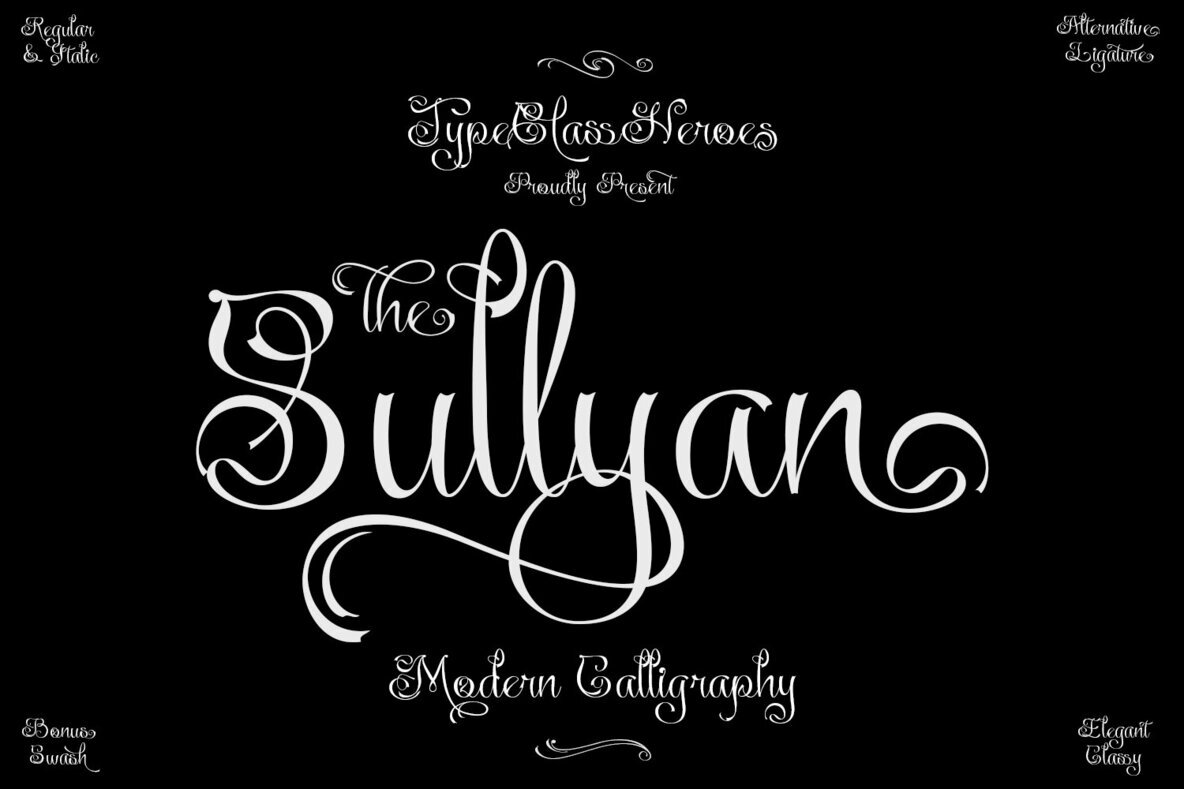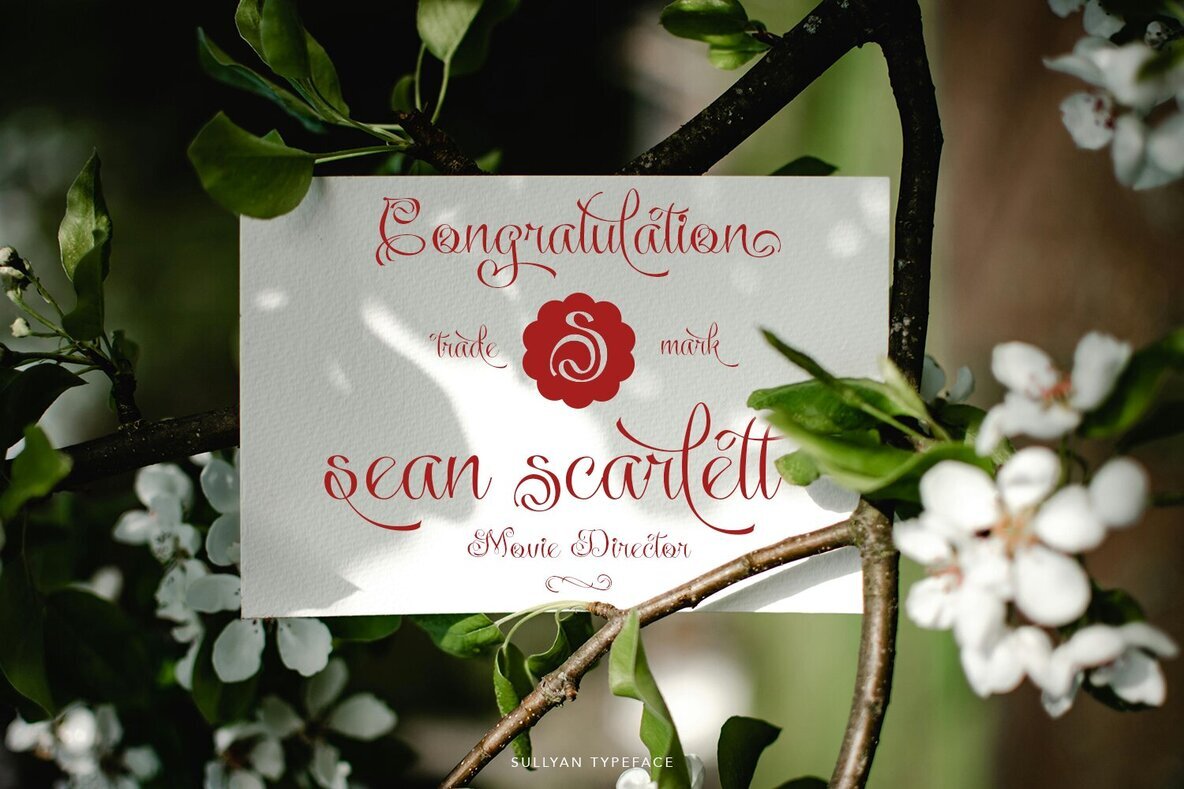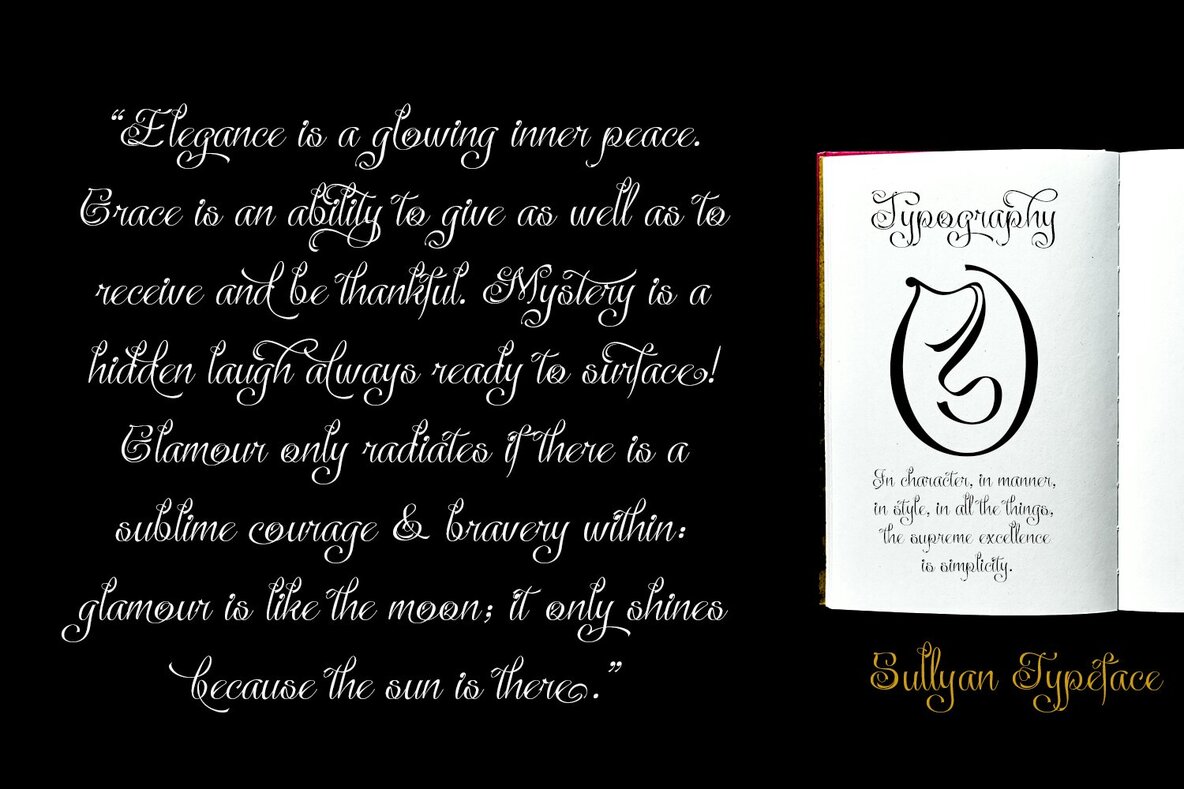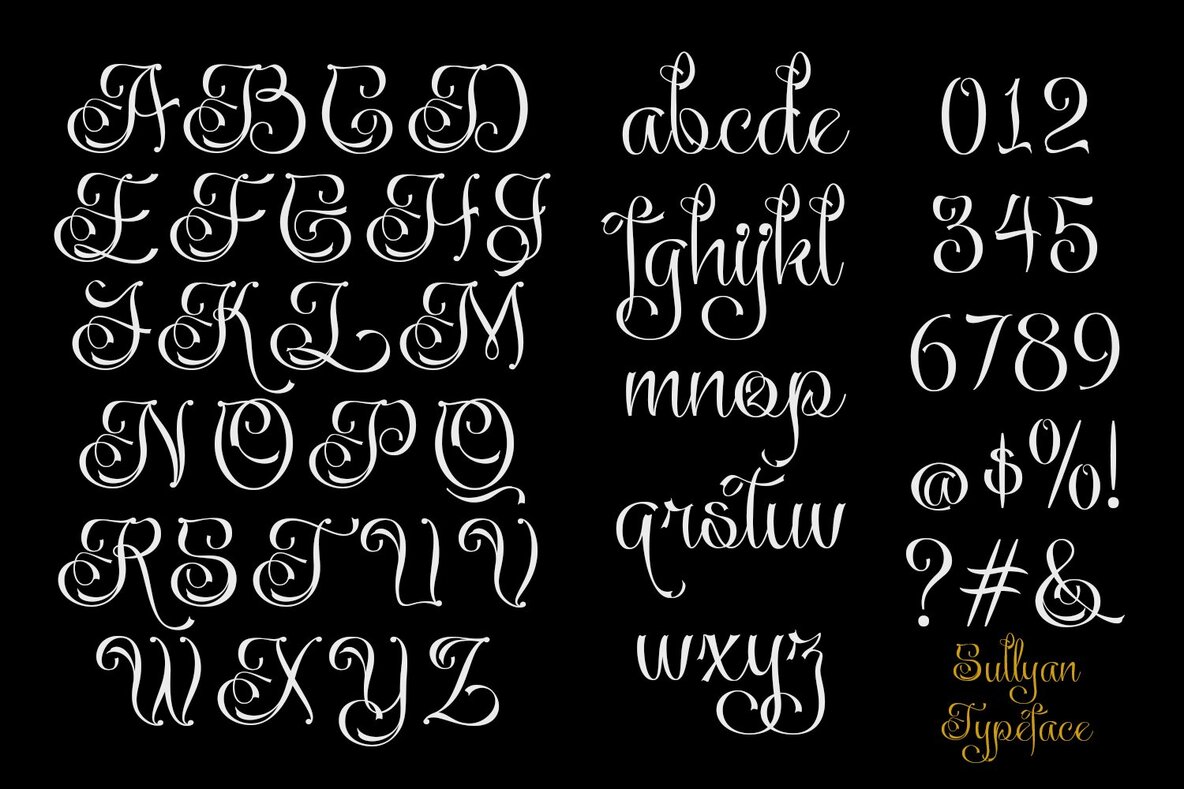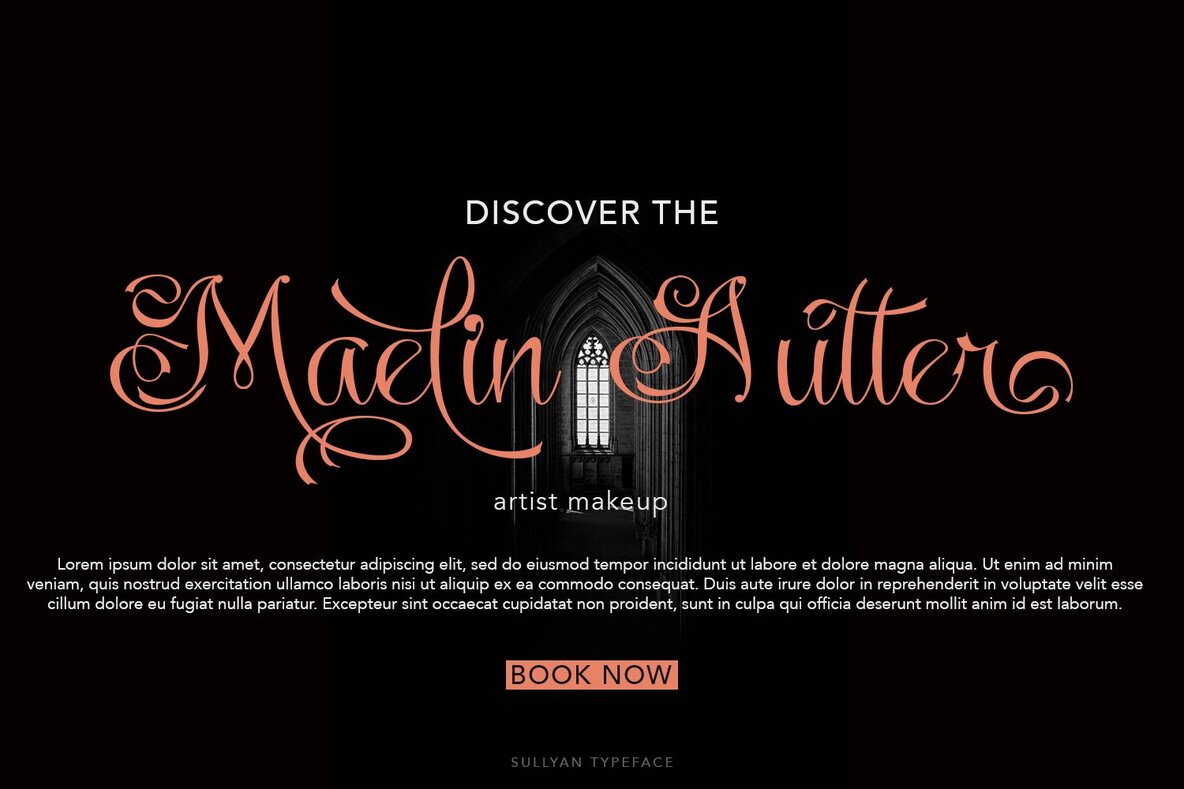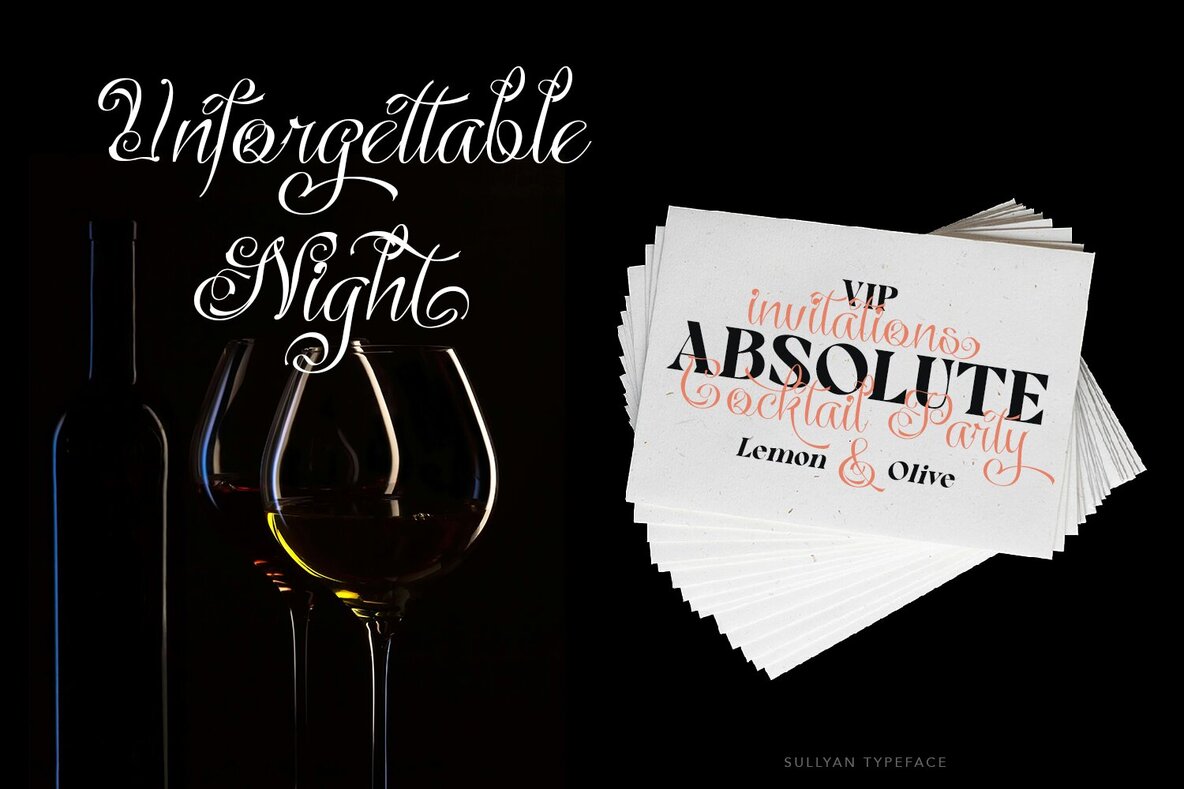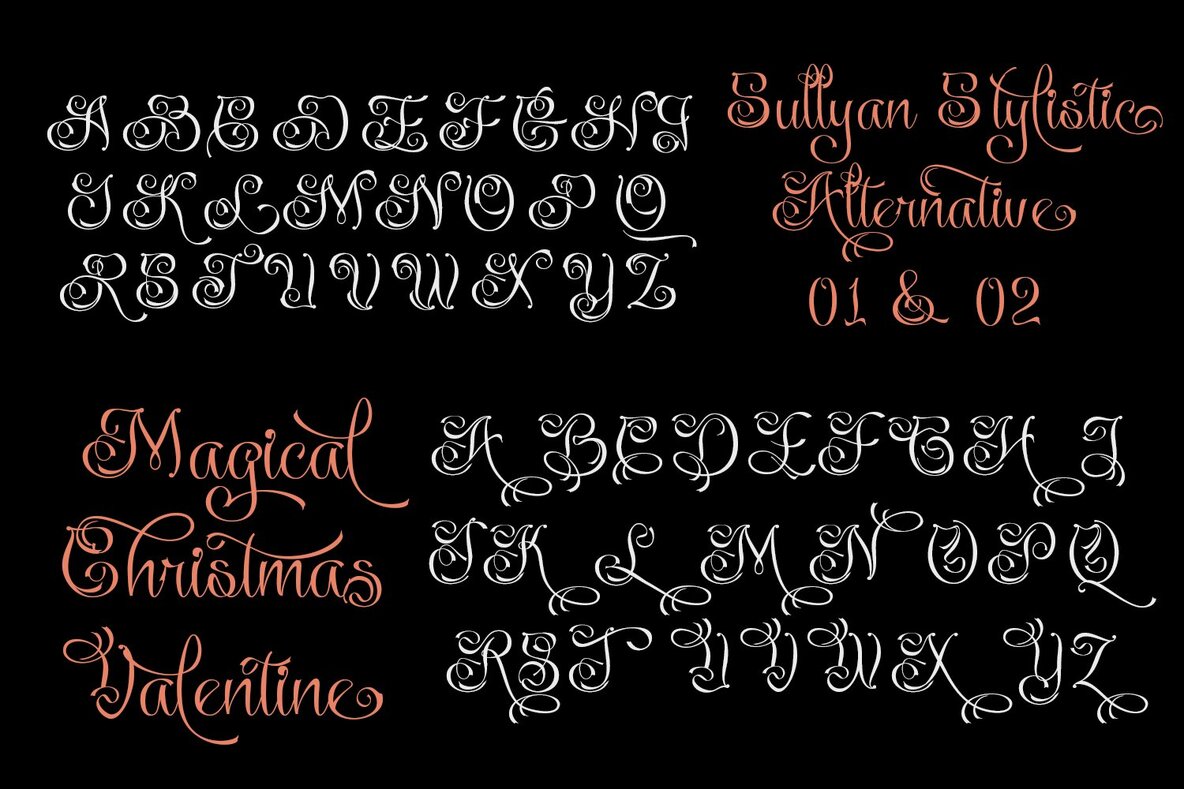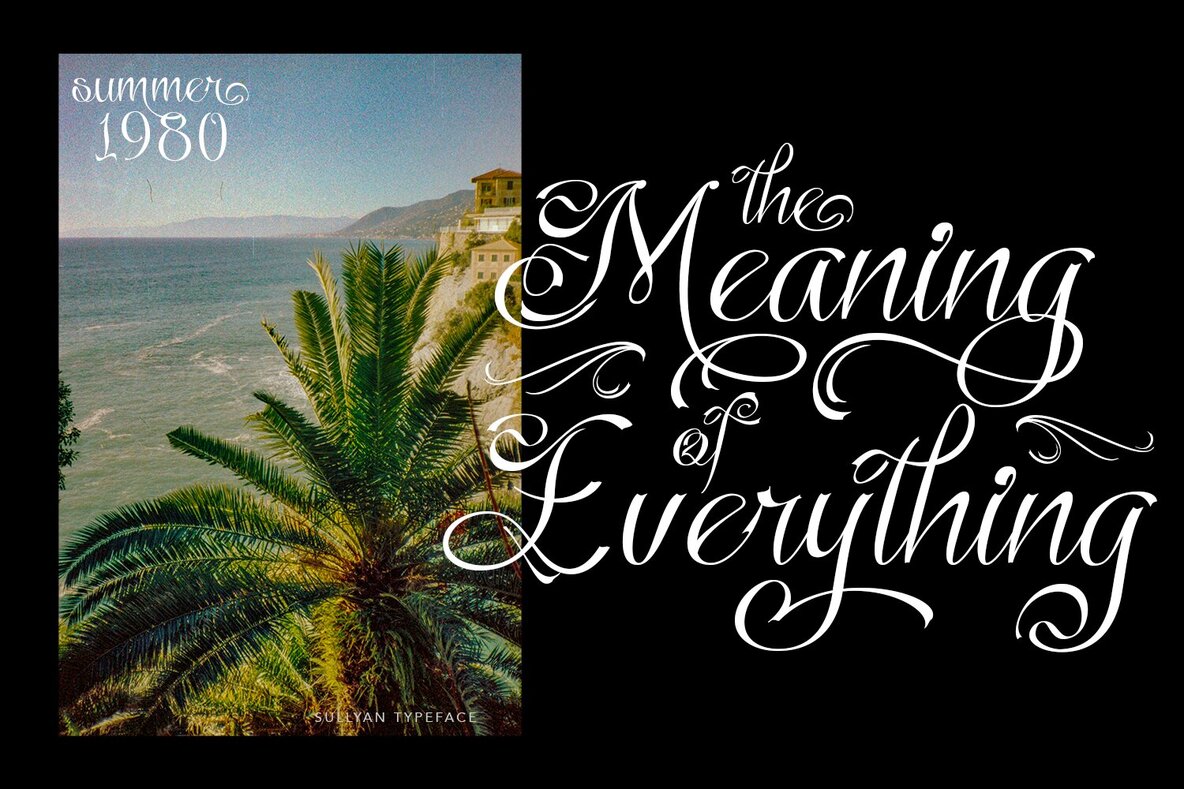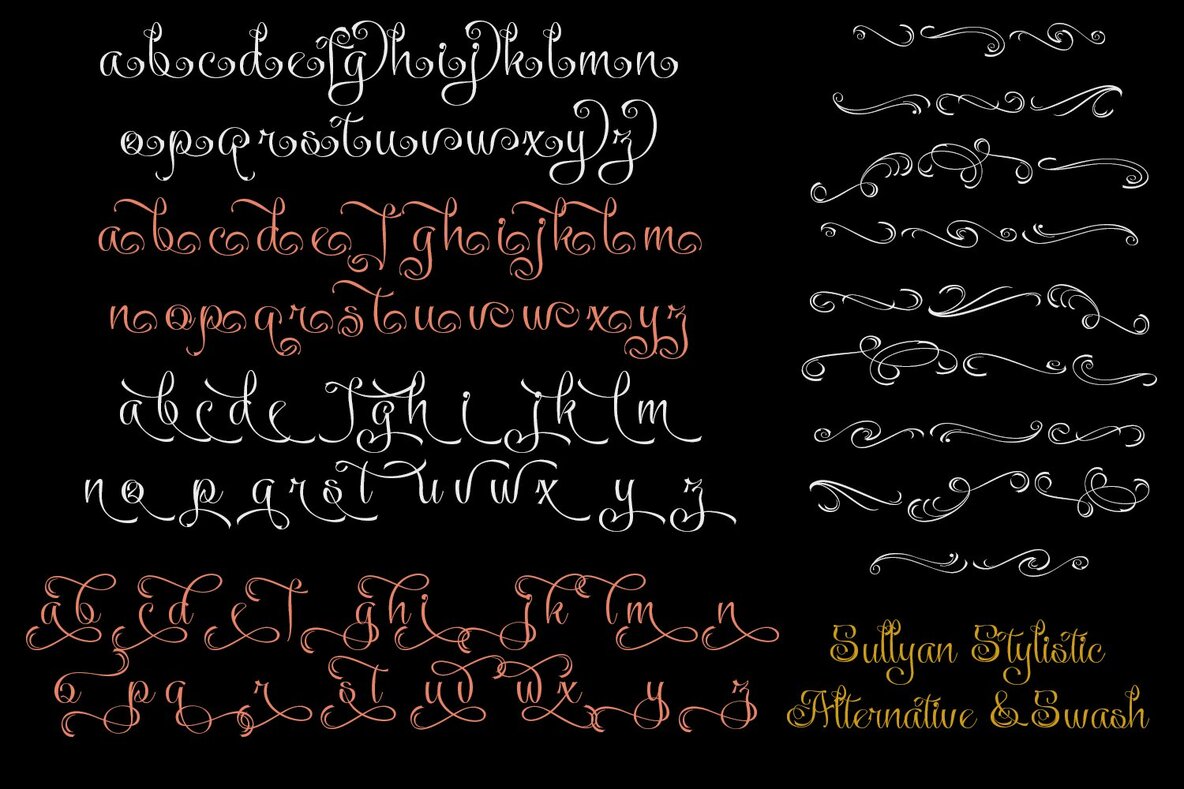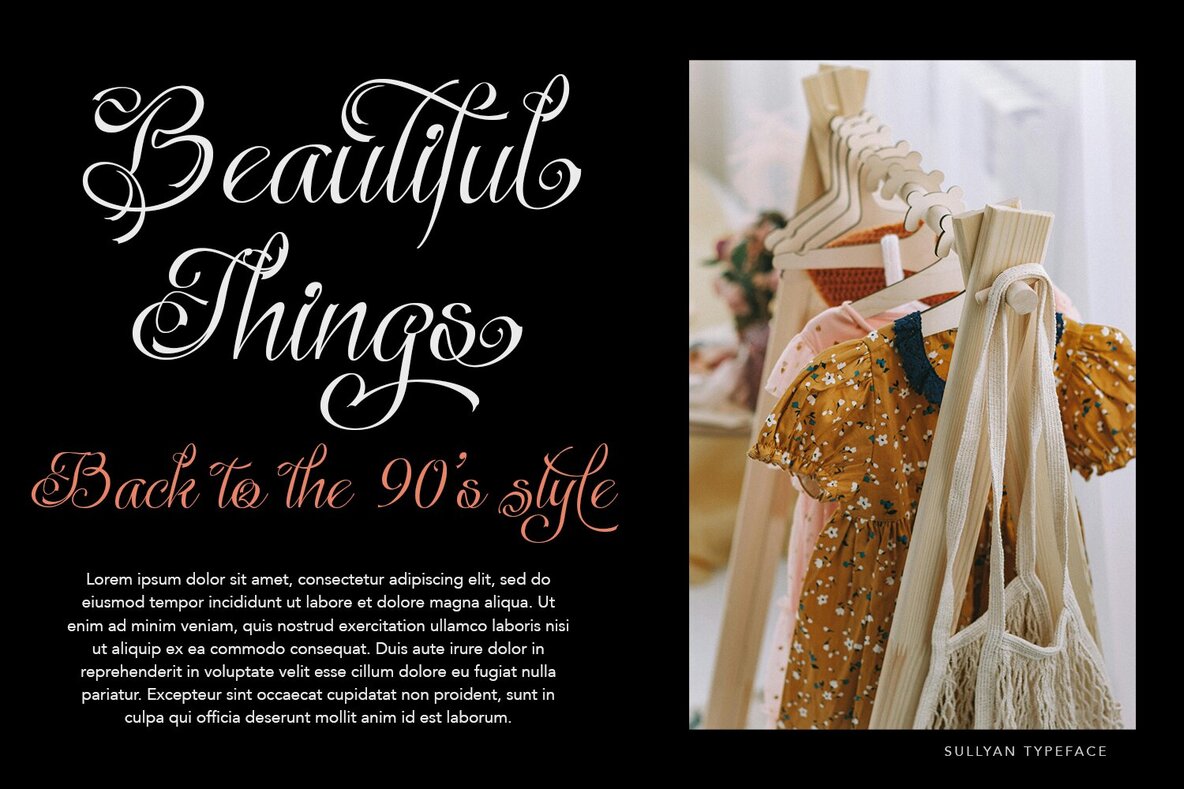
Sullyan Font
Introducing Sullyan, a refined calligraphy script that embodies the art of elegance with its graceful curves. Each letterform is meticulously crafted, showcasing ornate swashes that add a touch of sophistication. The harmonious blend of thick and thin strokes offers a dynamic visual appeal. Choose Sullyan to bring a timeless charm to your design projects, capturing attention with its stylish and classic allure.Sullyan: Elegance in Calligraphy
Perfect for Prestigious Projects